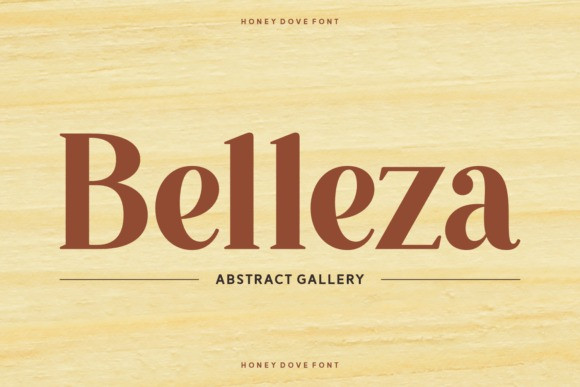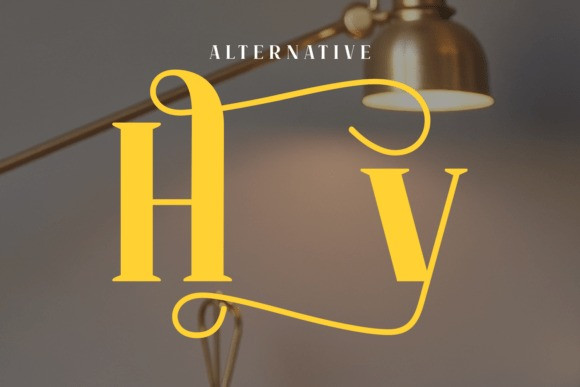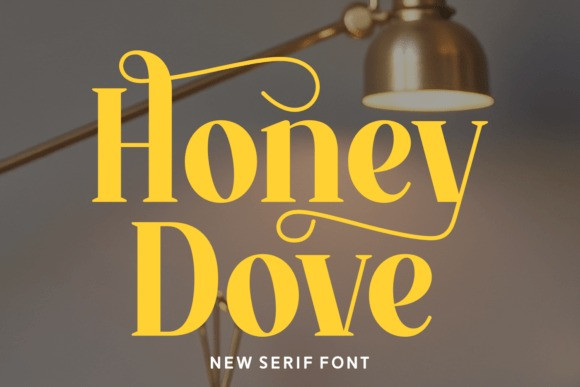
Honey Dove Font
Honey Dove Font a minimalist display font that personifies the harmony of classic and modern typography. Embellished with elegance, this serif font is a hot pick for exquisite wedding themes and contemporary brand logos. Honey Dove brings a modern touch to your design, effortlessly delivering a high-fashion impact on social media, magazines, and branding. Its sophisticated luxury engrained in every stroke of calligraphy evokes an undeniable stylish flair. Casual yet chic, this font is specially designed for beauty branding and Instagram influencers who want to make a statement. The feminine nature of Honey Dove makes it apt for invitations and represents the epitome of glamour. This typeface sparks a boutique feel that instantly resonates with the trendy audience. Rendering itself as a true vogue design alphabet, the sweet romance it incorporates in every symbol and letter is simply transfixing. Perfect for creating awesome logotypes, captivating posters and a sweetheart of typographers, Honey Dove is the perfect blend of the contemporary and the romantic in the world of fonts.